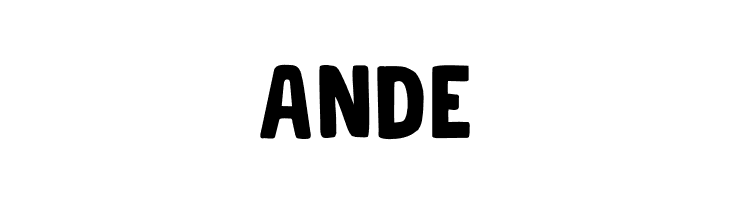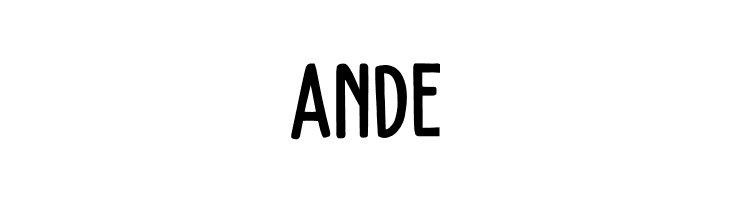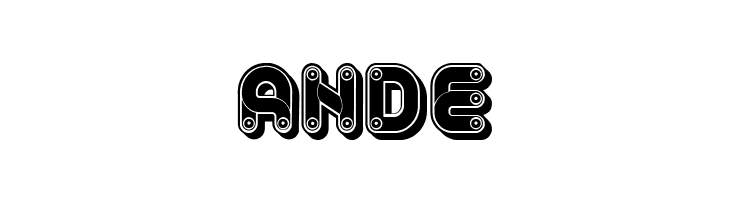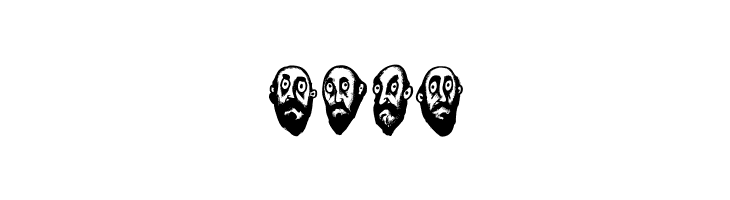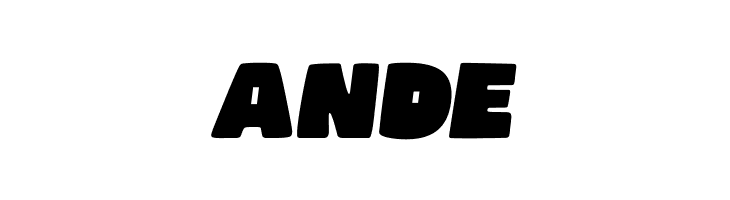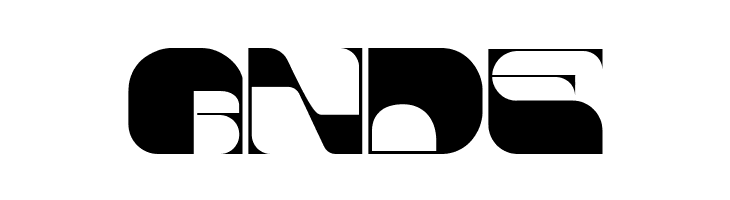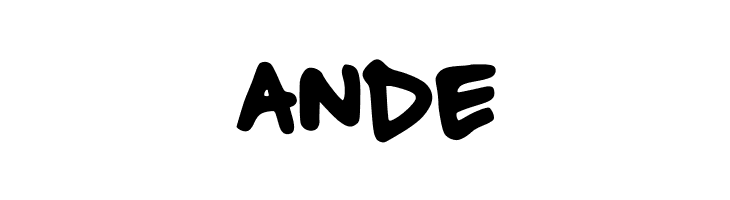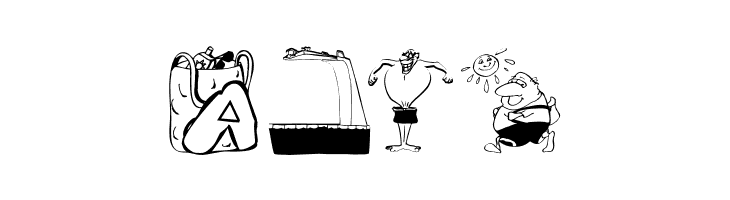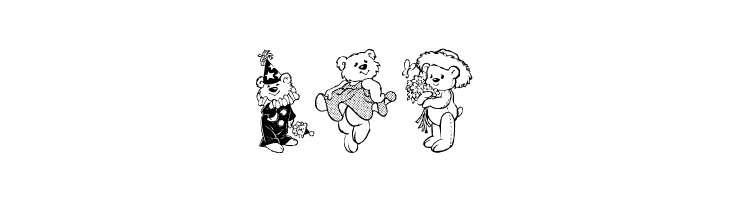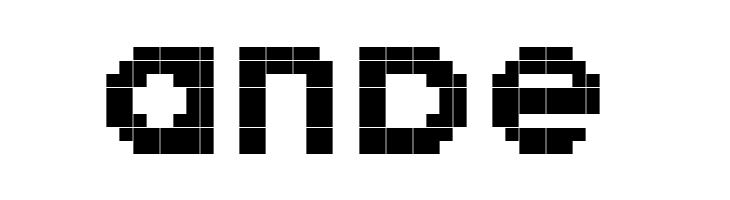
A fluid and elegant script font with a handwritten calligraphy style.
A fluid and elegant script font with a handwritten appeal.
A playful, handwritten font with a modern, energetic style.
A playful and energetic script font with flowing, cursive letterforms.
A bold, playful typeface with rounded, whimsical letterforms.
A bold, textured font with a playful, beach-inspired style.
A pixelated, retro-style font with a blocky, geometric design.
A decorative font with beach-themed illustrations for each character.
A playful, cursive font with a handwritten feel, perfect for personal and creative projects.
A playful, elegant script font with fluid, connected letters.
A playful, whimsical font with a blend of curves and straight lines, ideal for creative projects.
A bold, gothic-style font with sharp, angular lines and intricate details.
A lively and flowing script font with elegant cursive letterforms.
A modern, rounded font with sleek, elongated characters.
A bold, futuristic font with geometric shapes and high contrast.
A bold, hand-drawn font with an expressive and organic style.
A bold, playful font with a mechanical, gear-like design.
A playful, hand-drawn font with a textured, brush-like appearance.
A decorative font with illustrated bearded faces as characters.
A bold, decorative font with intricate internal patterns and a three-dimensional outline.
A bold, vintage-style font with thick, angular letters.
A whimsical, decorative font with playful, abstract beard-faced characters.
A bold, decorative font with intricate details and vintage flair.
A bold, decorative font with intricate detailing and vintage charm.
A bold, rounded font with a playful and friendly style.